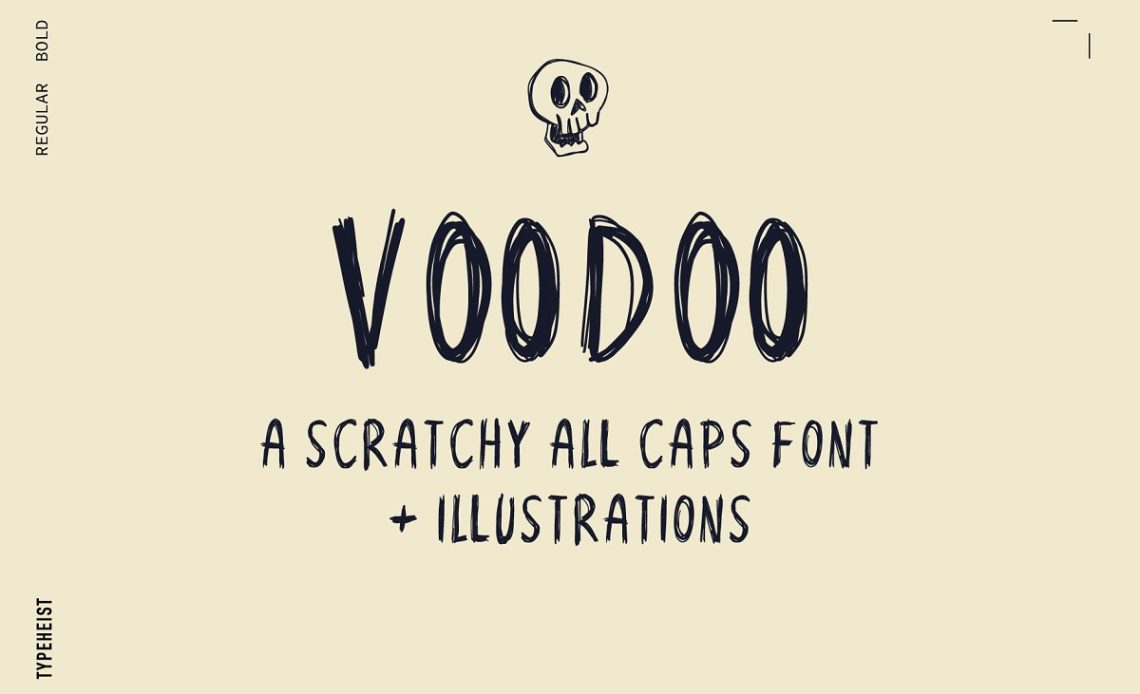
A scratchy, scribbled and all caps Halloween font, just in time for you to get spooky.
Voodoo includes 40+ matching scribble illustrations (voodoo dolls spiders, ghosts, skulls and more).
– VOODOO Regular & VOODOO Bold
– VOODOO Embellishments